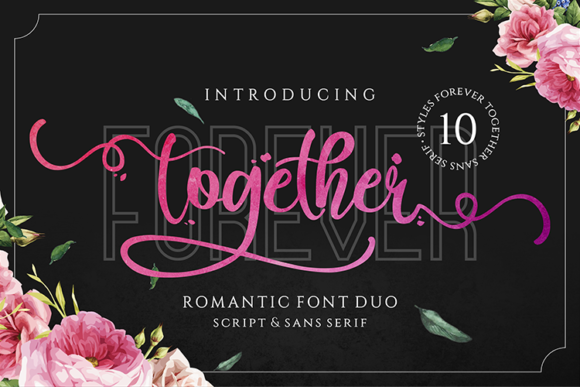
Forever Together Duo Font: The Ultimate Pairing for Romantic Designs
The Forever Together Duo Font is a stunning pair of fonts that will elevate your designs to new heights. This romantic font duo consists of two complementary fonts: a beautiful script font and a clean sans serif font. When paired together, they create a striking and elegant style that is perfect for creating unique designs.
What Makes Forever Together Duo Font Special?
The Forever Together Duo Font is a carefully crafted pairing of two fonts that work harmoniously together. The script font is elegant and flowing, with beautiful swashes and flourishes that add a touch of sophistication to any design. The sans serif font, on the other hand, is clean and modern, providing a beautiful contrast to the script font.
Key Features of Forever Together Duo Font
- Script Font: The script font in the Forever Together Duo Font is a beautiful, elegant font with flowing swashes and flourishes. It’s perfect for creating romantic and sophisticated designs.
- Sans Serif Font: The sans serif font is clean and modern, providing a beautiful contrast to the script font. It’s perfect for creating designs that require a clean and minimalist look.
- Perfect Pairing: The Forever Together Duo Font is designed to be paired perfectly. The two fonts work harmoniously together, creating a striking and elegant style that’s perfect for creating unique designs.
- Elegant Style: The Forever Together Duo Font has an elegant style that’s perfect for creating romantic and sophisticated designs. It’s ideal for designers who want to create beautiful and unique designs.
Uses of Forever Together Duo Font
The Forever Together Duo Font is a versatile font duo that can be used for a variety of design projects. Here are some of the most popular uses of this font duo:
Design Projects that Forever Together Duo Font is Perfect for:
- Wedding Designs: The Forever Together Duo Font is perfect for creating beautiful wedding designs, such as wedding invitations, wedding cards, and wedding stationery.
- Romantic Quotes: This font duo is ideal for creating romantic quotes and posters. The elegant style of the script font and the clean style of the sans serif font make it perfect for creating beautiful and inspiring quotes.
- Branding and Packaging: The Forever Together Duo Font can be used for branding and packaging designs. The unique and elegant style of this font duo makes it perfect for creating beautiful and memorable brand identities.
- Social Media Graphics: This font duo can be used to create beautiful social media graphics, such as Instagram posts, Facebook posts, and Twitter headers.
Benefits of Using Forever Together Duo Font
The Forever Together Duo Font offers a range of benefits for designers. Here are some of the most significant advantages of using this font duo:
Why Choose Forever Together Duo Font?
- Unique and Elegant Style: The Forever Together Duo Font has a unique and elegant style that’s perfect for creating beautiful and sophisticated designs.
- Perfect Pairing: The two fonts in this duo are designed to be paired perfectly, making it easy to create harmonious and balanced designs.
- Versatile: This font duo is versatile and can be used for a variety of design projects, from wedding designs to branding and packaging.
The Forever Together Duo Font is a stunning pair of fonts that will elevate your designs to new heights. With its elegant style, perfect pairing, and versatility, this font duo is perfect for creating unique and beautiful designs. Whether you’re a designer or a DIY enthusiast, the Forever Together Duo Font is a must-have font duo in your collection.